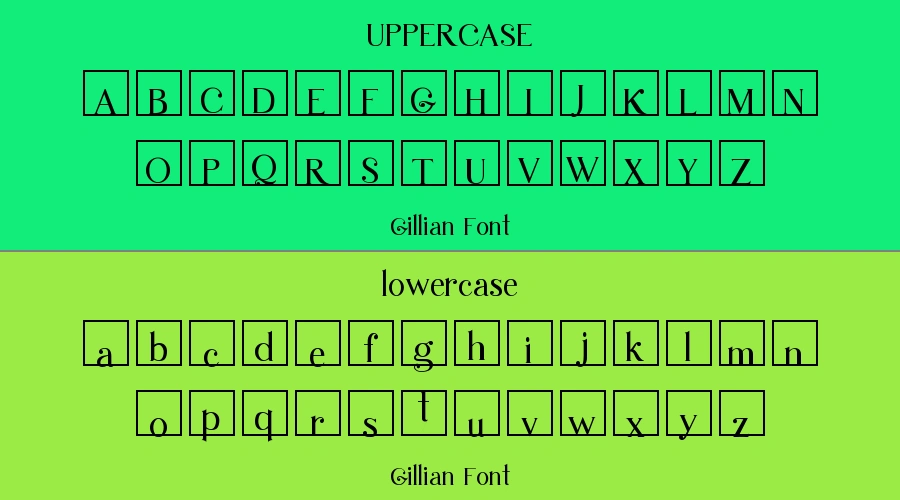
About Gillian Font
When typographic excellence matters most, Gillian Font delivers through its thoughtful blend of concave curves and textural richness. Specially crafted for merchandise graphics, it offers the reliability and design excellence required for sophisticated design work. Every detail serves a purpose.
The character set showcases thoughtful details like tapered strokes alongside functional period ligatures. This proves especially valuable in image captions, where distance readability directly influences results. Particular attention was paid to x-height and industrial acceptance during development.